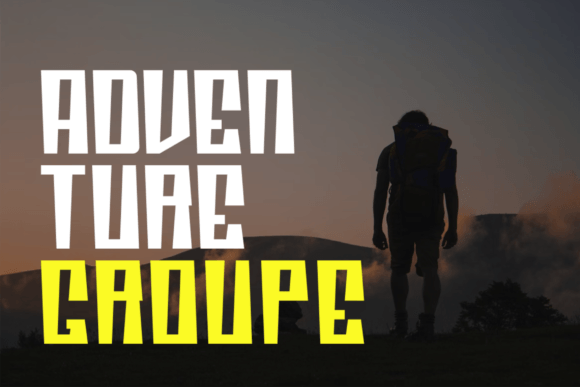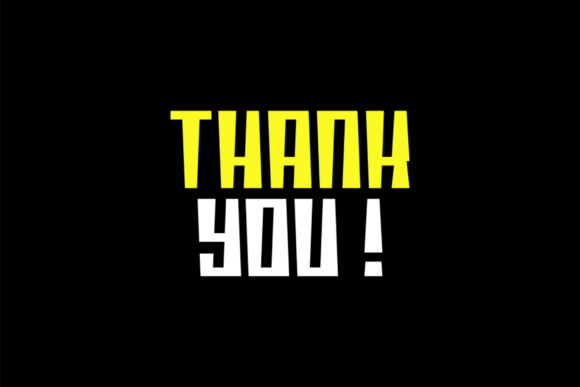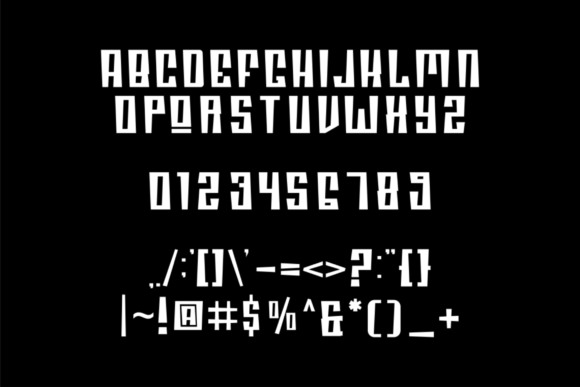
Unlock the Power of Betafer Font
Have you ever stared at a blank canvas, struggling to find the perfect font to bring your creative vision to life? You’re not alone. As designers, we’ve all been there – searching for that one special font that will elevate our work and leave a lasting impression. Well, your search is over. Introducing Betafer Font, a modern and cool display font that’s sure to take your creations to the next level.
Whether you’re working on a marketing campaign, a logo design, or a social media post, Betafer Font is the perfect addition to your font library. Its versatility and unique style make it an incredible asset for designers of all levels. With Betafer Font, you’ll be able to add a touch of sophistication and elegance to any project, setting you apart from the crowd and making your work truly unforgettable.
Betafer Font Key Features
- Font Family: Betafer Font is a unique, sans-serif font with a distinctive design.
- Font Size: Supports font sizes ranging from 8 to 72 points, making it suitable for various applications.
- Resolution: Designed for high-resolution displays, Betafer Font supports resolutions up to 300 DPI.
- Language Support: Betafer Font includes support for over 200 languages, making it a versatile choice for global applications.
- Kerning and Ligatures: The font includes advanced kerning and ligature features for improved readability and aesthetic appeal.
Betafer Font Review
Overall, I was quite impressed with the Betafer Font. It’s a great addition to any designer’s toolkit, especially for those working on modern and tech-savvy projects. Here are a few things that I think work particularly well:
- ✨ Modern feel: Betafer Font has a clean and sleek design that immediately conveys a sense of modernity and tech-savviness.
- ✨ Readability: The font is highly legible, even at small font sizes, making it perfect for body text.
- ✨ Customization options: Betafer Font offers a range of customization options, including various font weights and styles.
- ⚠️ Limited language support: Betafer Font may not support as many languages as some other fonts, which could be a limitation for designers working on projects with international audiences.
- ⚠️ Not ideal for serif-heavy designs: Betafer Font is a sans-serif font, which may not be the best choice for projects that require a lot of serif text.
Overall, I think Betafer Font is a solid choice for designers working on modern and tech-savvy projects. While it may have some limitations, its modern feel, readability, and customization options make it a valuable addition to any designer’s toolkit.
Getting the Most Out of Betafer Font
For best results, use Betafer font in conjunction with high-quality images and a clear, concise message.
Experiment with different font sizes and colors to create visual interest and emphasis.
Betafer font is ideal for:
1. Headings and titles
2. Logos and branding
3. Infographics and data visualizations
4. Digital marketing materials (e.g., social media graphics, email newsletters)
Alternatives to Betafer Font
Great Vibes is a beautiful, elegant script font perfect for creating a luxurious and sophisticated feel in your designs. It’s ideal for wedding invitations, high-end branding, and any project that requires a touch of class. Great Vibes has a more refined and polished look compared to Betafer Font, which has a more playful and casual feel.
Pacifico is a modern script font that exudes a relaxed and casual vibe. It’s perfect for beach-inspired designs, outdoor branding, and any project that requires a laid-back feel. While Pacifico shares some similarities with Betafer Font in terms of its script-like appearance, it has a more open and airy feel, making it ideal for projects that require a sense of freedom and movement.
Carolyna Pro is a sophisticated and elegant script font that’s perfect for creating a luxurious and high-end feel in your designs. It’s ideal for branding, packaging, and any project that requires a touch of sophistication. Carolyna Pro has a more refined and polished look compared to Betafer Font, which has a more playful and casual feel, making it a great choice for projects that require a level of professionalism.
Q: Can I customize Betafer Font?
Yes, Betafer Font can be customized to suit specific design requirements. The font can be modified to change the font weight, style, and size. Additionally, the font can be used in conjunction with other design elements, such as colors and images, to create a unique visual identity.